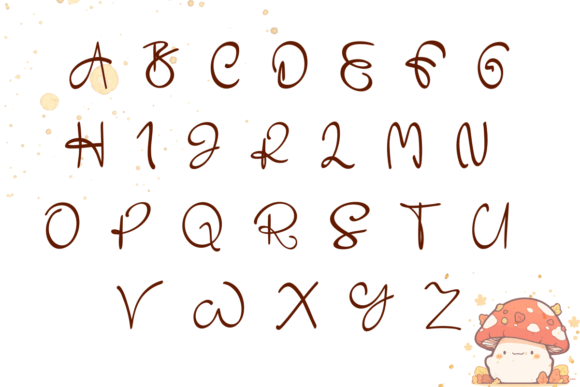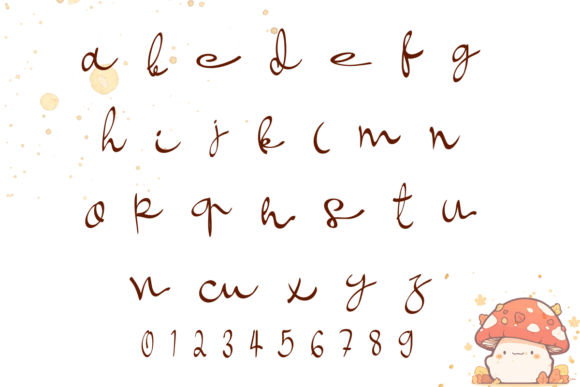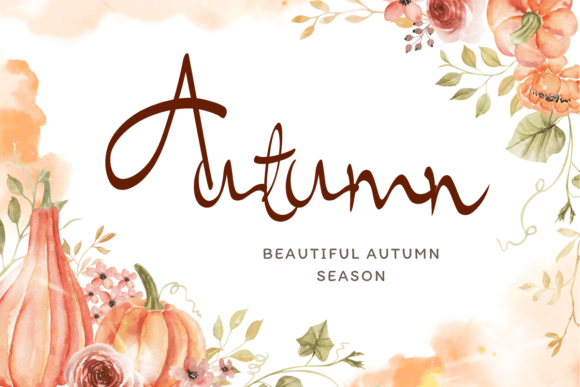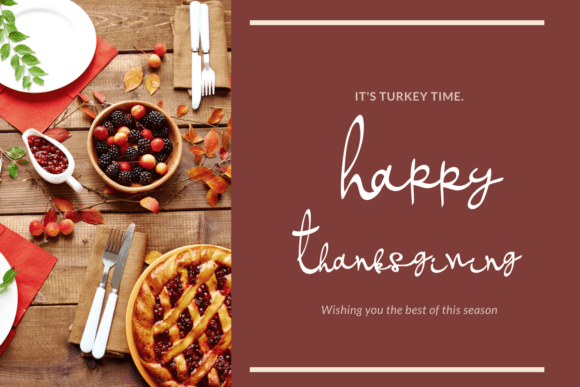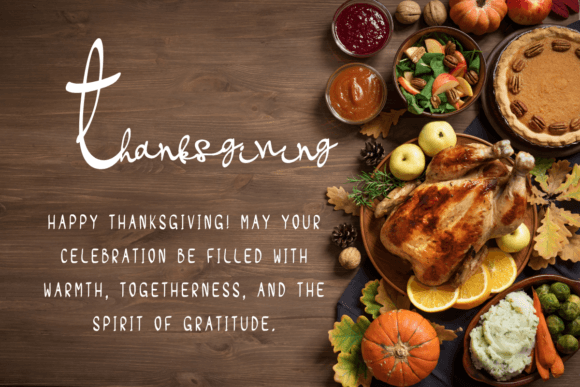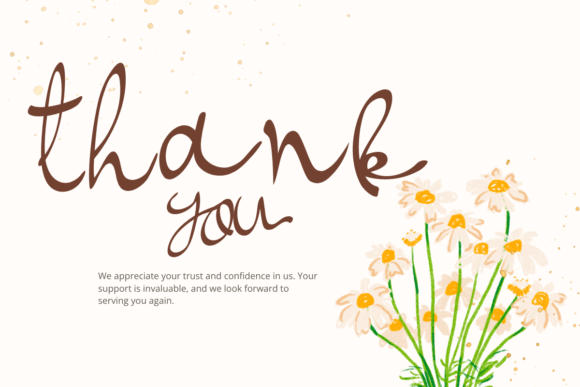
Introducing the Cozy Autumn Thanksgiving Font: Perfect for Your Fall Designs
As the leaves change colors and the air grows crisper, our thoughts turn to the warmth and gratitude of the autumn season. For designers and crafters, this means it’s time to get creative with autumn-themed projects, from Thanksgiving greeting cards to fall-inspired stationery. To help you add a personal touch to your designs, we’re excited to introduce the Autumn Thanksgiving Font – a beautiful, handwritten font that’s perfect for a wide range of applications.
What is the Autumn Thanksgiving Font?
The Autumn Thanksgiving Font is a charming, handwritten font that’s designed to evoke the cozy feelings of the autumn season. With its flowing script and whimsical flair, this font is ideal for adding a touch of warmth and personality to your designs. Whether you’re creating a Thanksgiving greeting card, a fall-themed banner, or simply writing in your diary, this font is sure to bring a smile to your face.
Uses for the Autumn Thanksgiving Font
One of the best things about the Autumn Thanksgiving Font is its versatility. While it’s perfect for traditional autumn and Thanksgiving designs, it can also be used for a wide range of other projects, including:
- Note-taking and journaling: Add a personal touch to your notes and diary entries with this beautiful, handwritten font.
- Greeting cards and invitations: Create one-of-a-kind greeting cards and invitations for Thanksgiving, birthdays, and other special occasions.
- Banners and signs: Use the Autumn Thanksgiving Font to create eye-catching banners and signs for your fall-themed events or parties.
- Social media posts: Add a touch of autumn charm to your social media posts, from Instagram captions to Facebook updates.
- Merchandise and products: Use the font to create unique and eye-catching designs for mugs, shirts, tote bags, and other products.
- Stationery and paper crafts: Add a personal touch to your stationery, scrapbooking, and other paper crafts with this beautiful font.
Why Choose the Autumn Thanksgiving Font?
With so many fonts to choose from, why should you choose the Autumn Thanksgiving Font for your designs? Here are just a few reasons:
- Unique and eye-catching: This font has a distinctive, handwritten look that’s sure to stand out in a crowd.
- Easy to read: Despite its whimsical flair, the Autumn Thanksgiving Font is easy to read, making it perfect for both digital and print applications.
- Versatile: As mentioned earlier, this font can be used for a wide range of projects, from traditional autumn designs to more unexpected applications.
- High-quality: The Autumn Thanksgiving Font is a high-quality font that’s designed to look great in a variety of sizes and resolutions.
Tips for Using the Autumn Thanksgiving Font
To get the most out of the Autumn Thanksgiving Font, here are a few tips to keep in mind:
- Experiment with different sizes and colors: Don’t be afraid to try out different sizes and colors to see what works best for your design.
- Pair with other fonts: Consider pairing the Autumn Thanksgiving Font with other fonts to create a unique and eye-catching combination.
- Use for headings and titles: This font is perfect for headings and titles, where its whimsical flair can really shine.
- Add a personal touch: Use the Autumn Thanksgiving Font to add a personal touch to your designs, whether you’re creating a greeting card or a social media post.